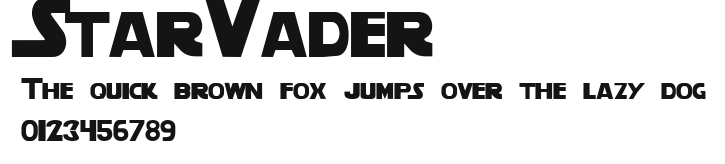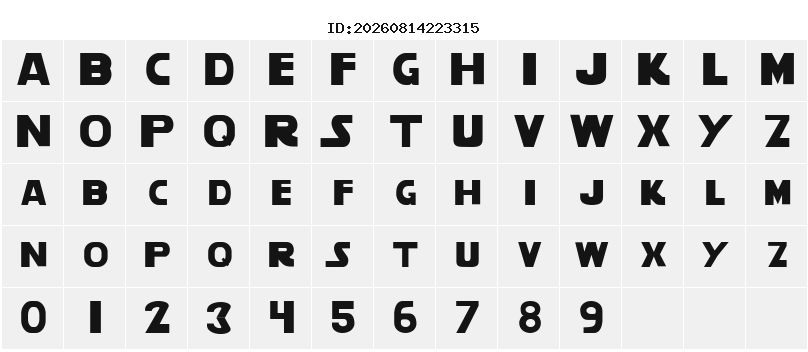
• Font Name: StarVader
About StarVader.ttf
StarVader.ttf is a modern, elegant sans-serif font designed for ultimate readability and visual harmony. Perfect for branding, headlines, web design, and print materials.